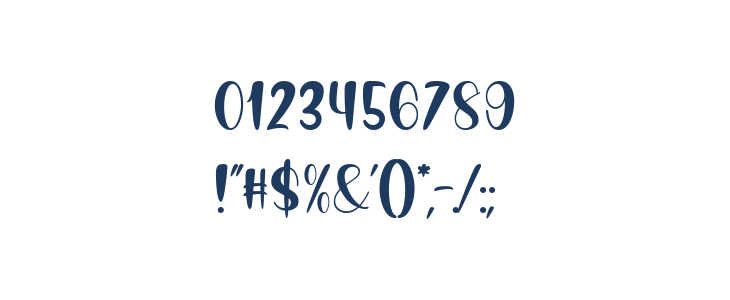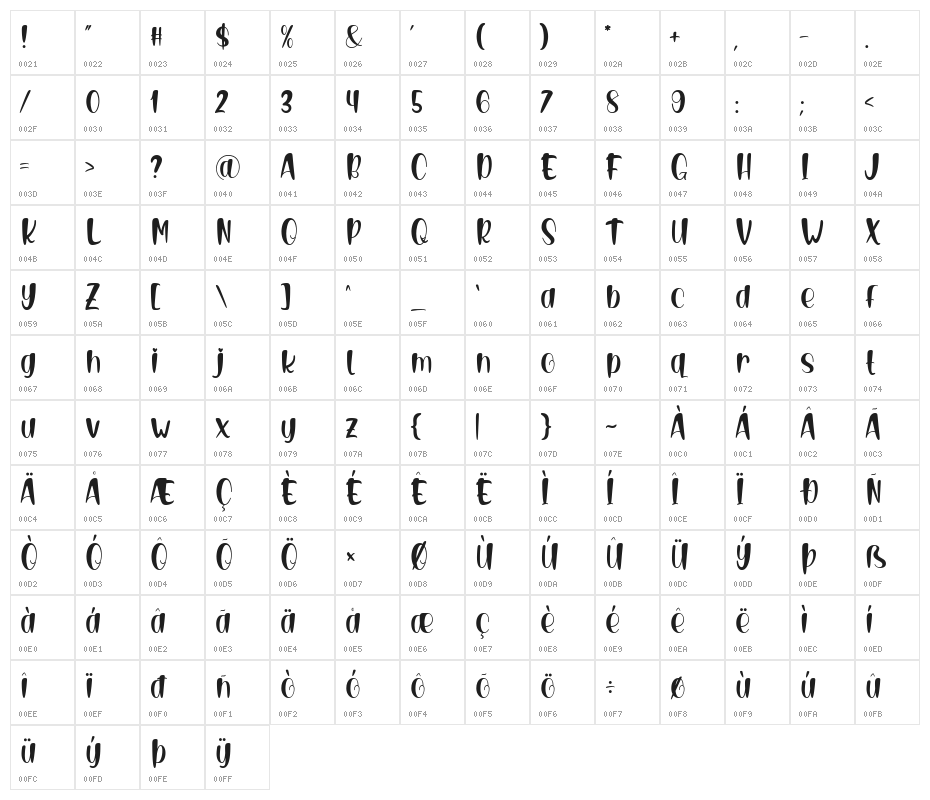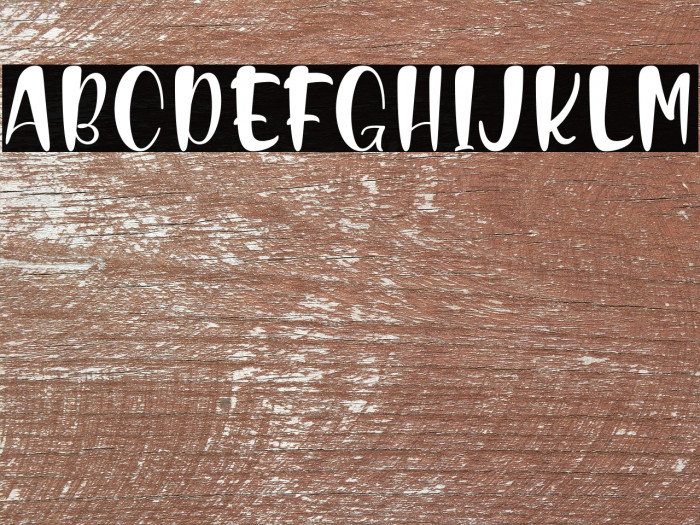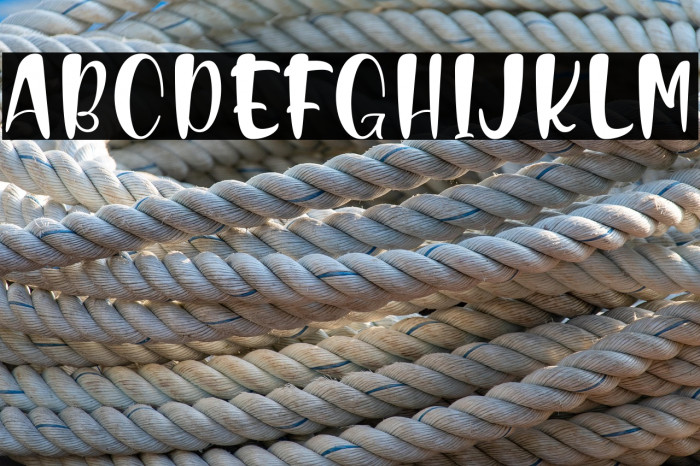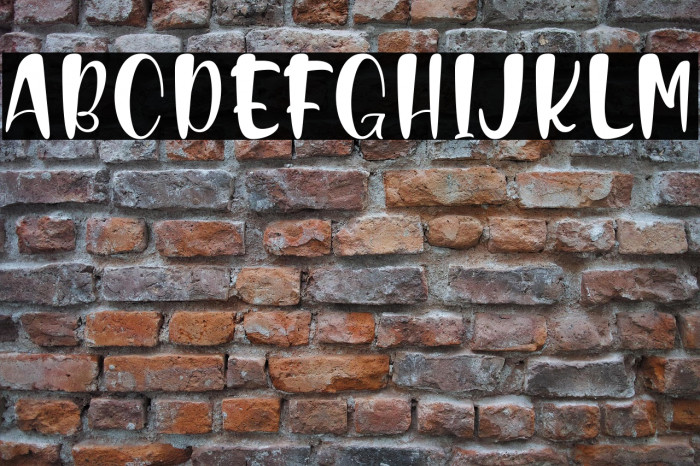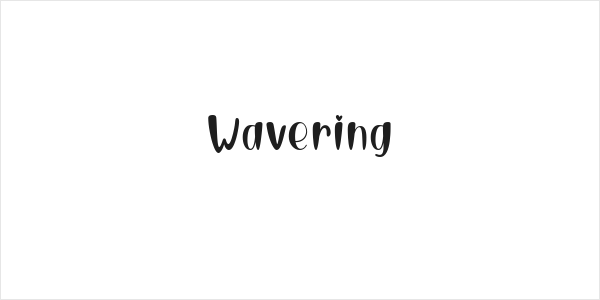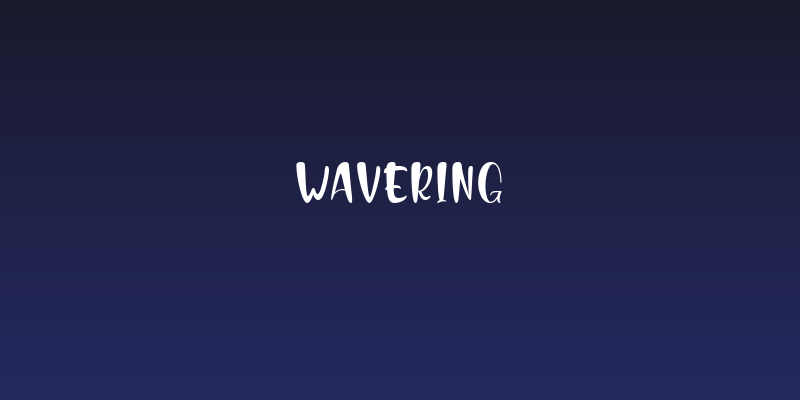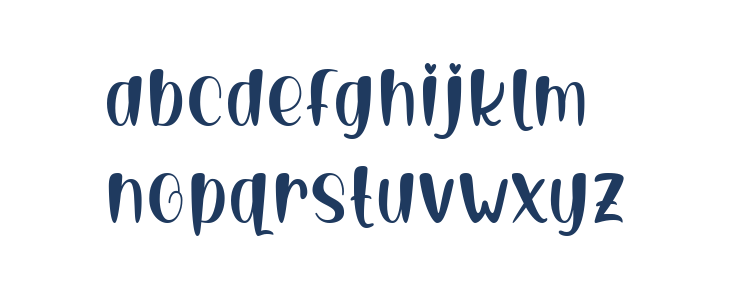
Wavering Font
Wavering Description
This font features a playful and whimsical style with a handwritten appearance. The letters have a flowing, cursive-like quality, characterized by smooth curves and a slight slant. The strokes are bold and consistent, giving the font a strong presence. The uppercase letters are slightly taller than the lowercase, maintaining a uniform width throughout. The numbers and special characters follow the same playful design, ensuring cohesion across all characters. This font's unique style makes it suitable for creative and informal projects.
| Use Case | Logos, Headlines, Creative projects |
| Proposed Projects | Ideal for greeting cards, invitations, children's books, and creative branding. |